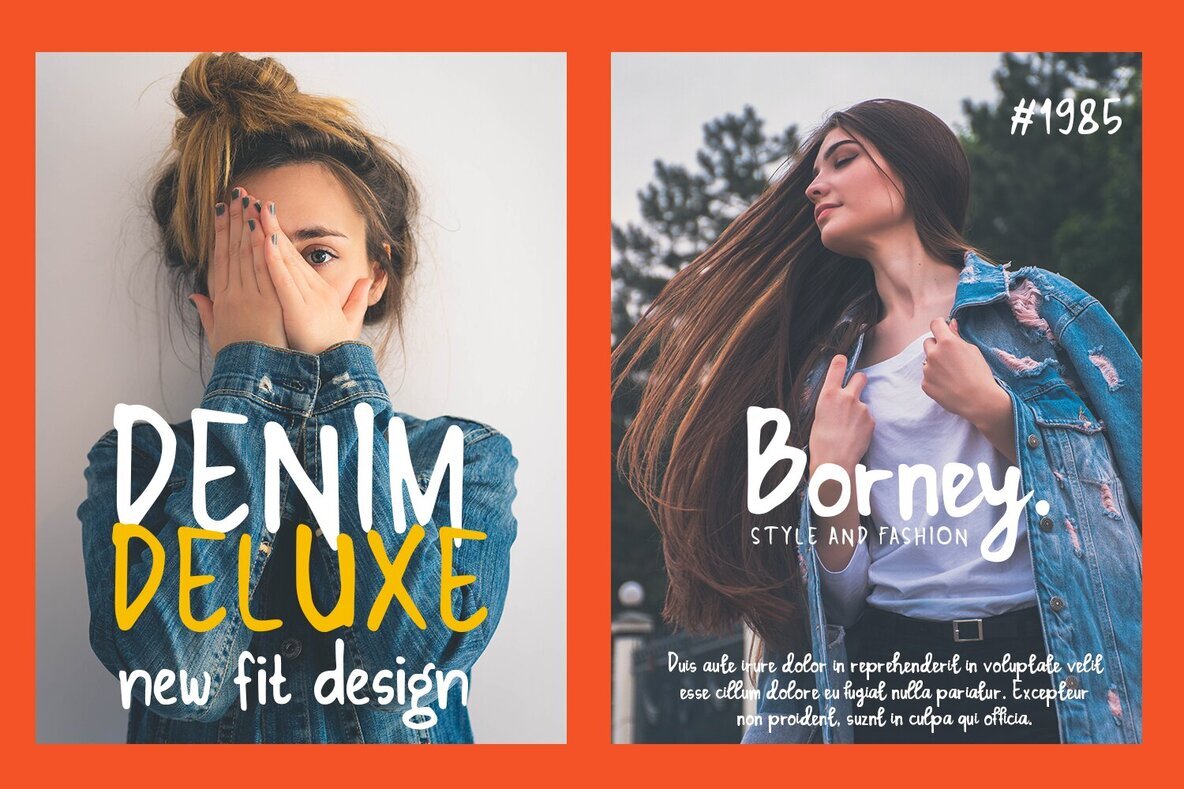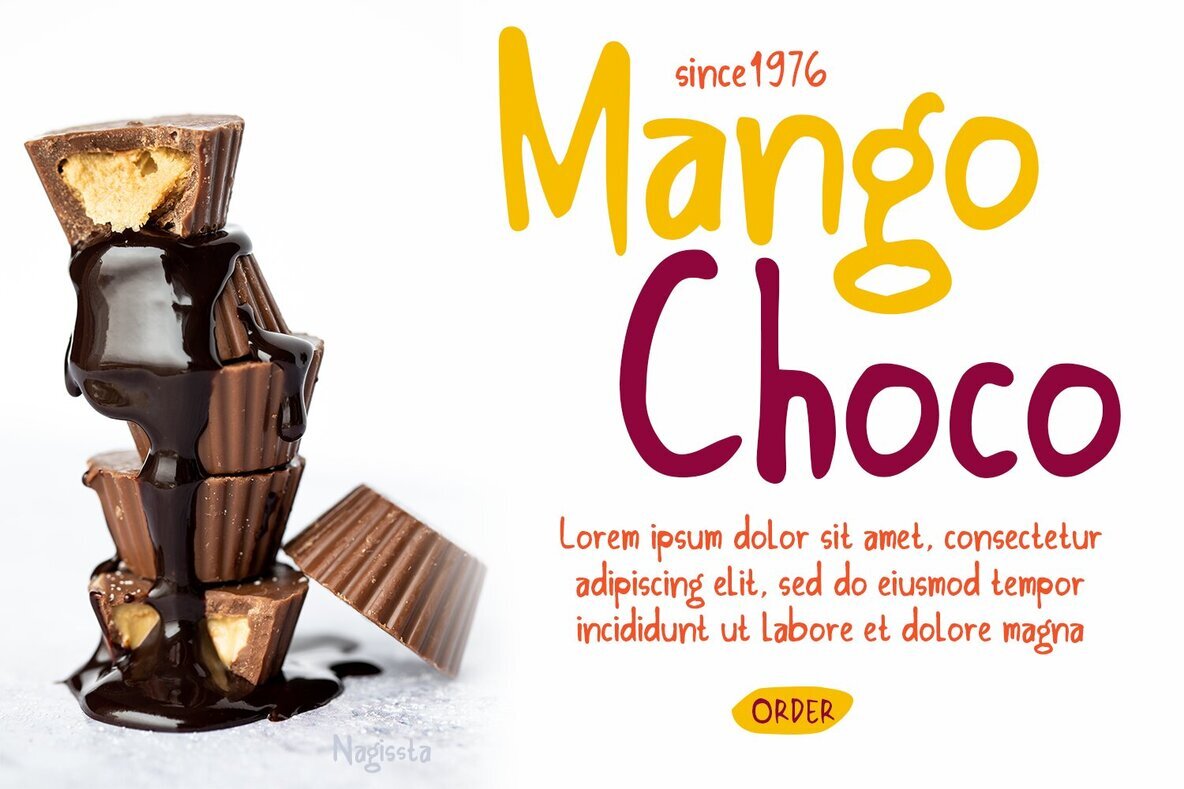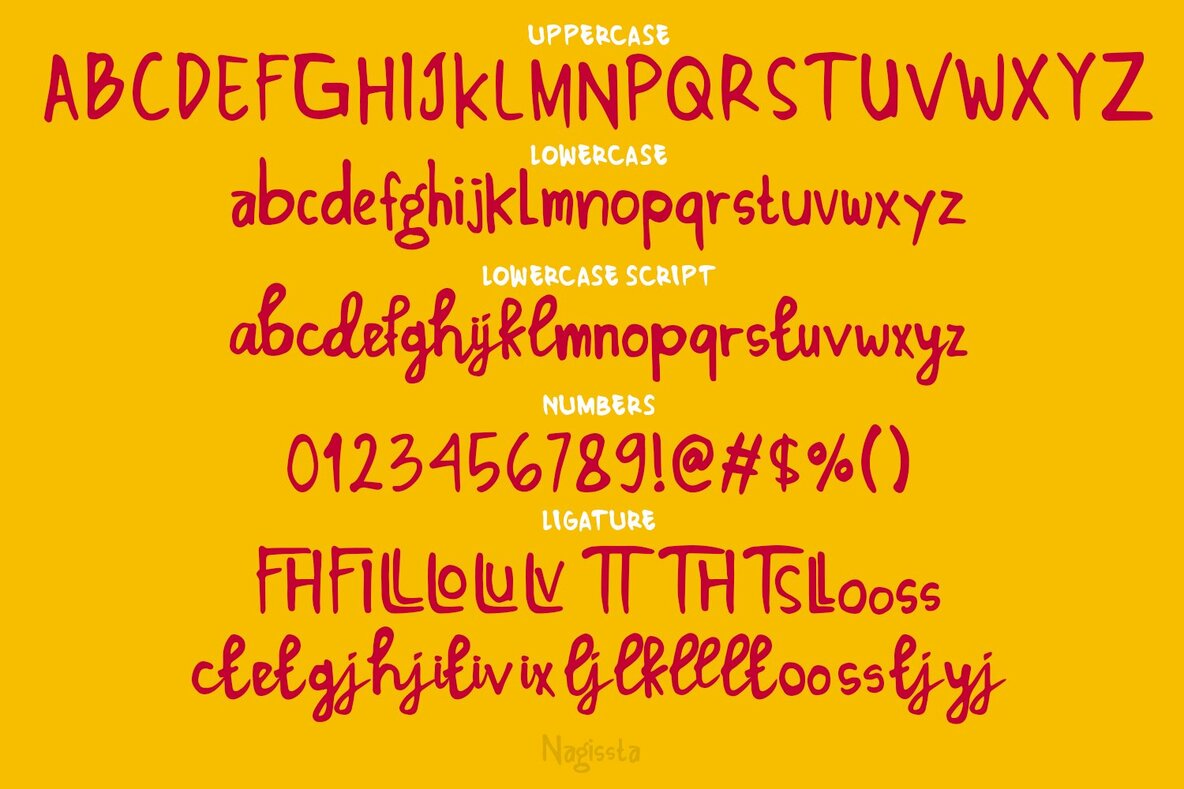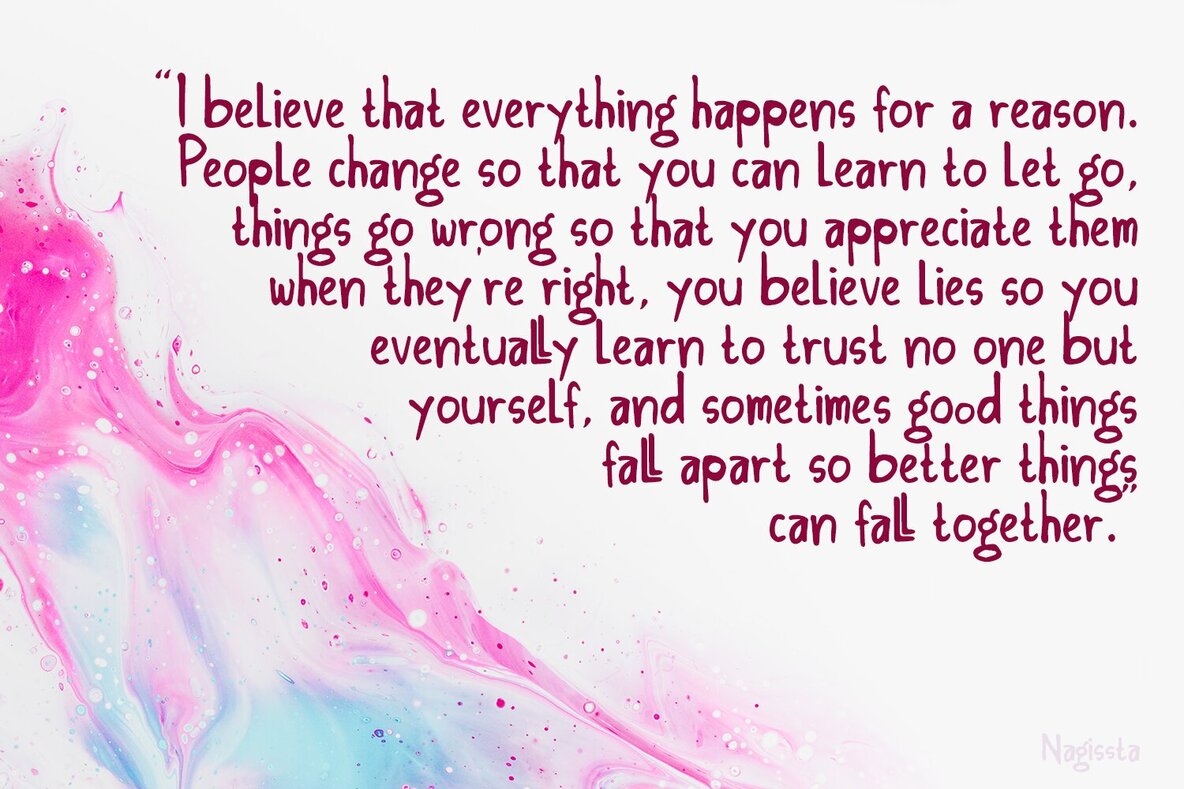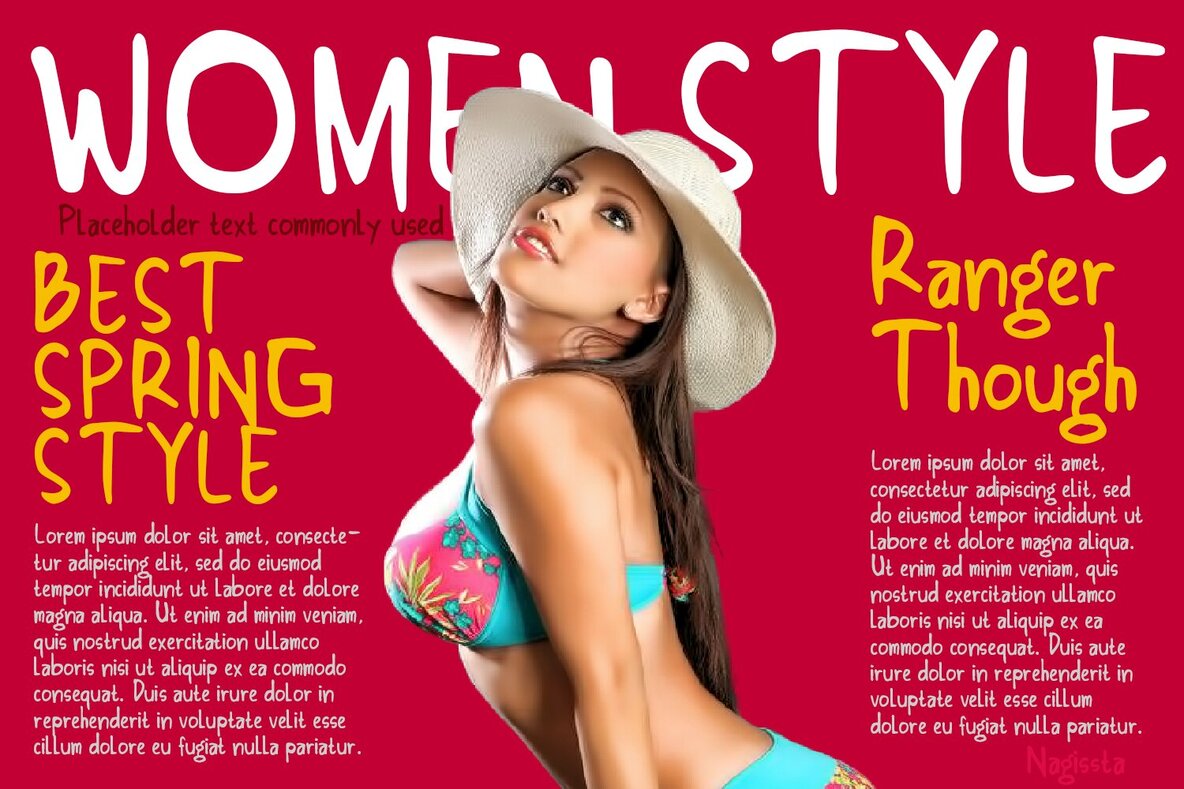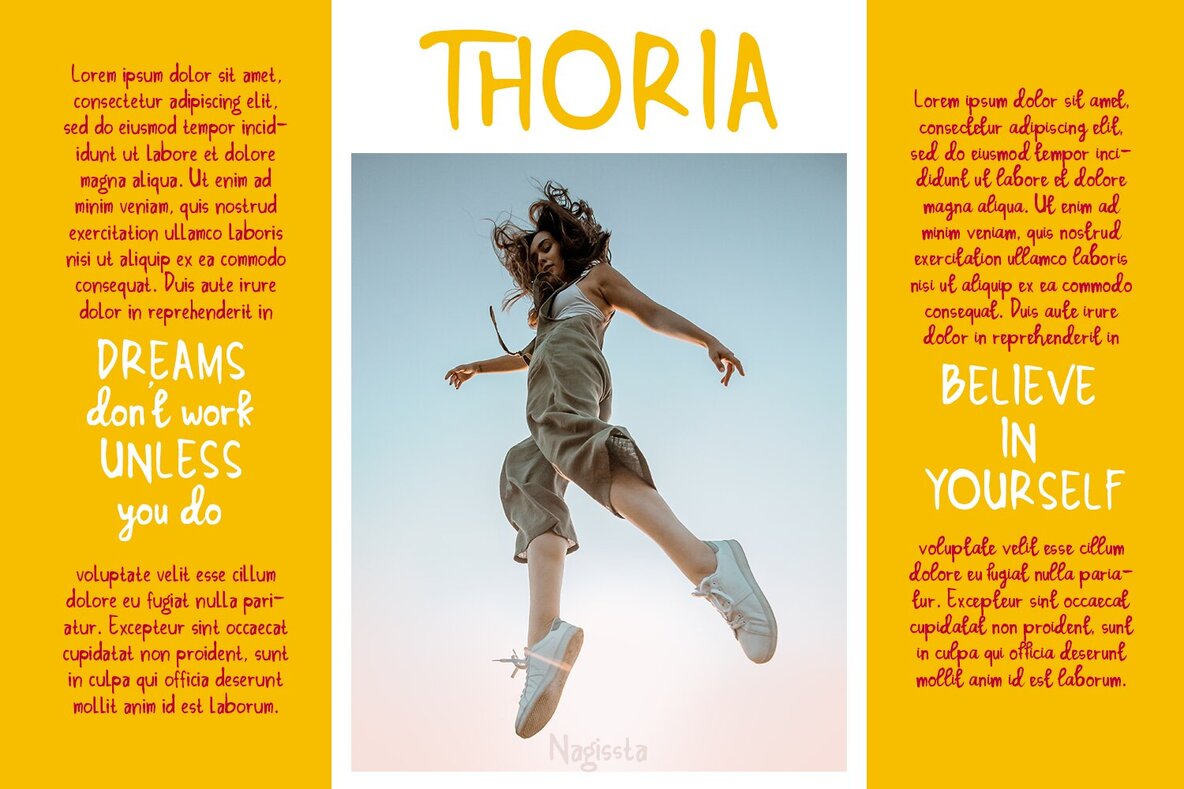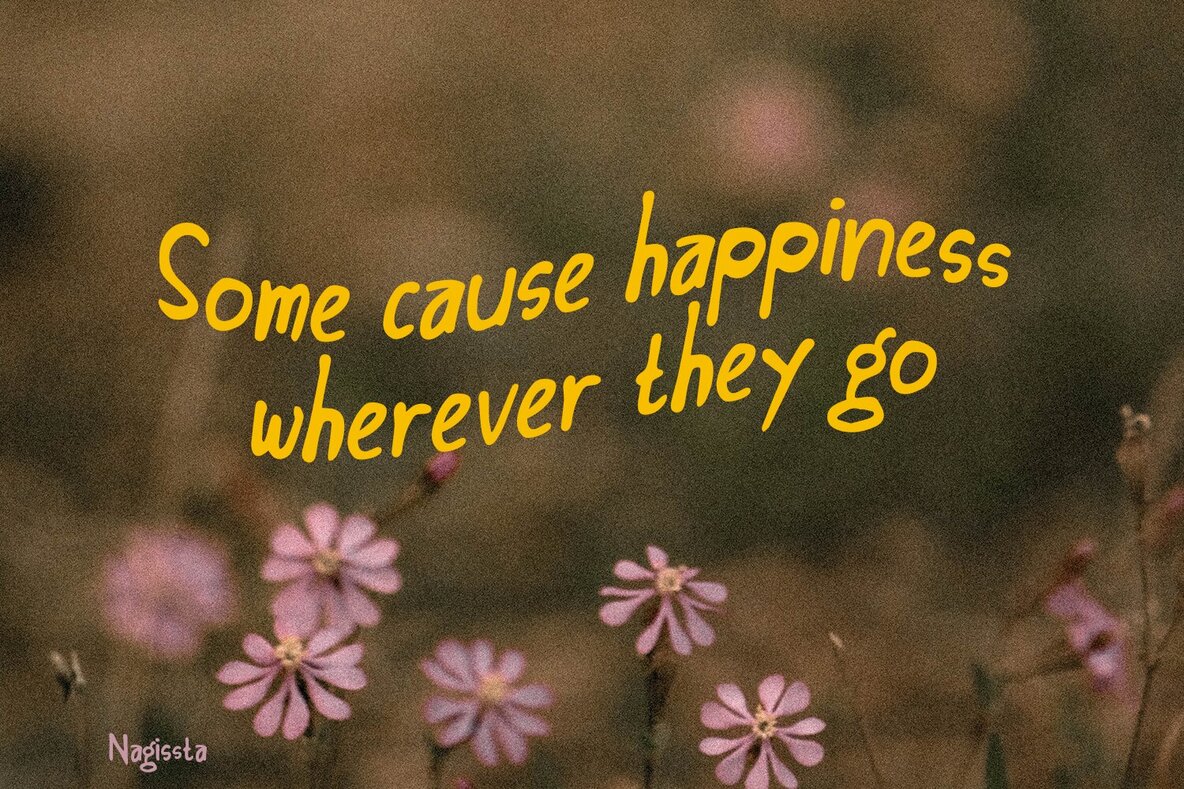
Nagissta Font
Meet "Nagissta" - a charming handwritten font duo that features both a matching script and regular style. The delightful blend of these two styles makes it an ideal choice for various design projects such as book titles, branding, product packaging, invitations, quotes, t-shirts, labels, posters, and logos. Features